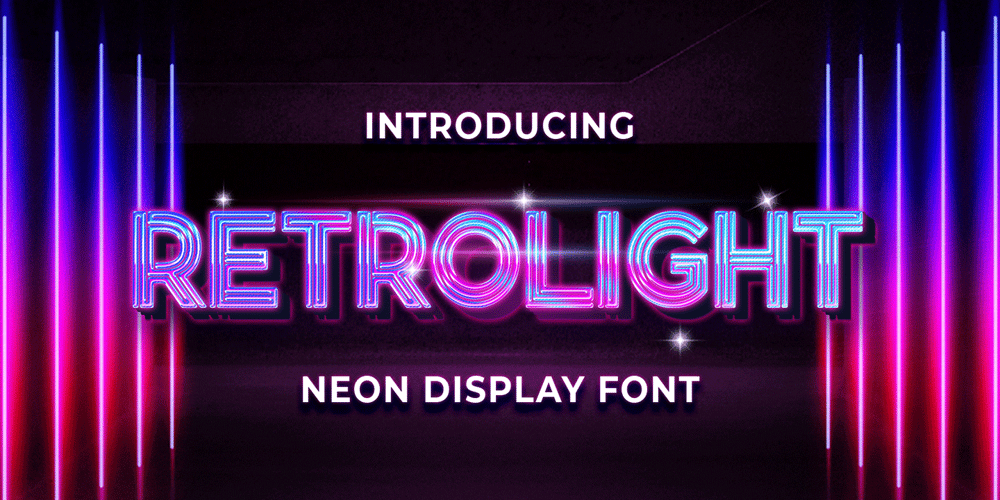
Retrolight Font Family was designed by Abdul Malik Wisnu and published by Almarkha Type. Retrolight contains 1 styles and family package options. Introducing Neon Font called Retrolight A unique Fonts with Retro Style can make your logotype become more interesting. inspired by real world neon light signs, it features minimal letter forms with smooth rounded corners and, true to real neon tubes, strictly uses lines with open start and end points. This font is perfect for adding your own glowing light effects or can be used to actually design real world neon signs.Retrolight fonts is perfect for your project and allows you to create designs, headlines, posters, logos, badges, t-shirts and many more that are beautiful. It is also best used for posts, logos, posters, certificates, labels and more.